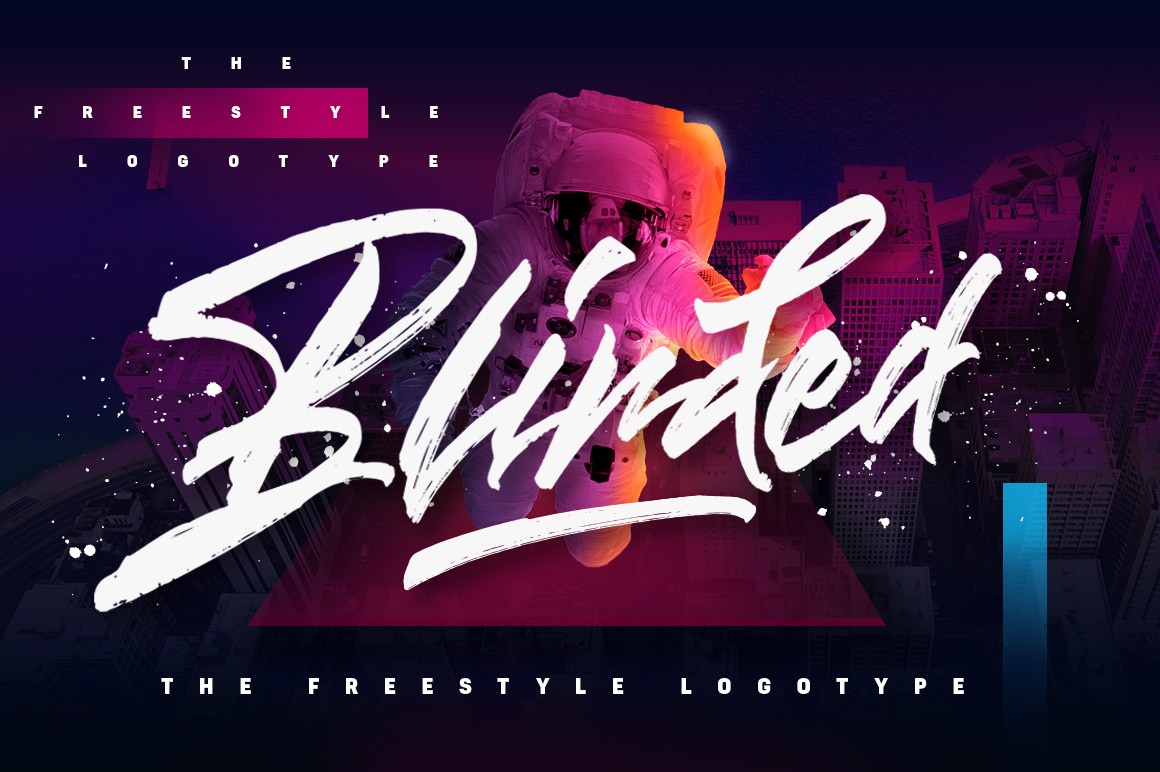
Blinded Font
Blinded Font is ideal for mystery thriller novels, psychological horror films, dark ambient music albums, underground art exhibitions, noir photography projects, experimental theater posters, shadowy nightclub branding, cryptic puzzle games, investigative journalism materials, and enigmatic artistic expressions.
What makes Blinded Font so exciting is its haunting ability to obscure and reveal simultaneously, creating an atmosphere of psychological tension and mysterious intrigue that challenges conventional perception. This enigmatically crafted typeface features deliberately obscured letterforms with fragmented visibility and shadowy character variations that immediately convey uncertainty, hidden depths, and the unsettling beauty of partial revelation. The font's cryptic construction and atmospheric aesthetic create an immediate sense of psychological complexity and visual mystery, making it perfect for projects that need to communicate hidden truths, suppressed knowledge, and the compelling darkness that exists beyond ordinary sight to audiences seeking intellectual challenge and emotional depth.
The Blinded Font family typically includes multiple obscured weights and mysterious styles, often featuring light, regular, and shadow variations along with partially hidden italic versions. Experimental font collections frequently offer additional concealment elements such as fragmented characters, visibility alternates, and perceptual ligatures that enhance the cryptic aesthetic and provide designers with comprehensive tools for creating psychologically engaging and visually intriguing communications.
The mysterious nature of Blinded Font makes it particularly effective for targeting sophisticated demographics that value intellectual complexity and artistic experimentation. Creative directors and cultural producers will find this font especially valuable for projects that must establish immediate intrigue while challenging conventional visual expectations and perceptual assumptions.
What sets Blinded Font apart is its ability to maintain functional communication while deliberately obscuring traditional readability expectations. This paradoxical characteristic makes it suitable for avant-garde applications where questioning perception and challenging assumptions are more valuable than immediate clarity.
Professional designers recognize that Blinded Font brings invaluable psychological depth to projects across industries including entertainment, contemporary art, experimental publishing, and cultural criticism. Its enigmatic character and mysterious appeal make it essential for organizations seeking to create genuinely thought-provoking experiences that challenge audiences and provoke deeper consideration.
The intentional ambiguity of Blinded Font ensures consistent psychological impact across all experimental communication applications while maintaining artistic integrity and intellectual sophistication.